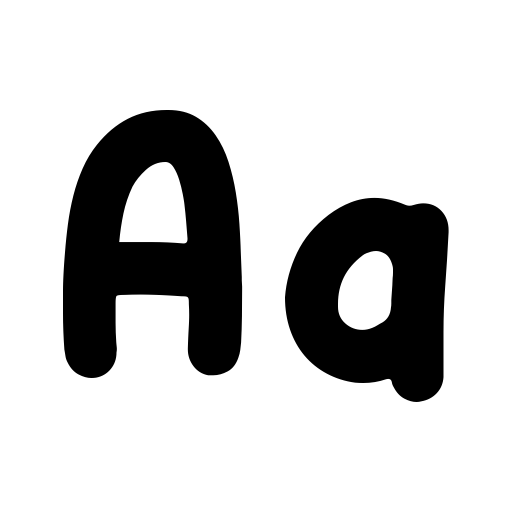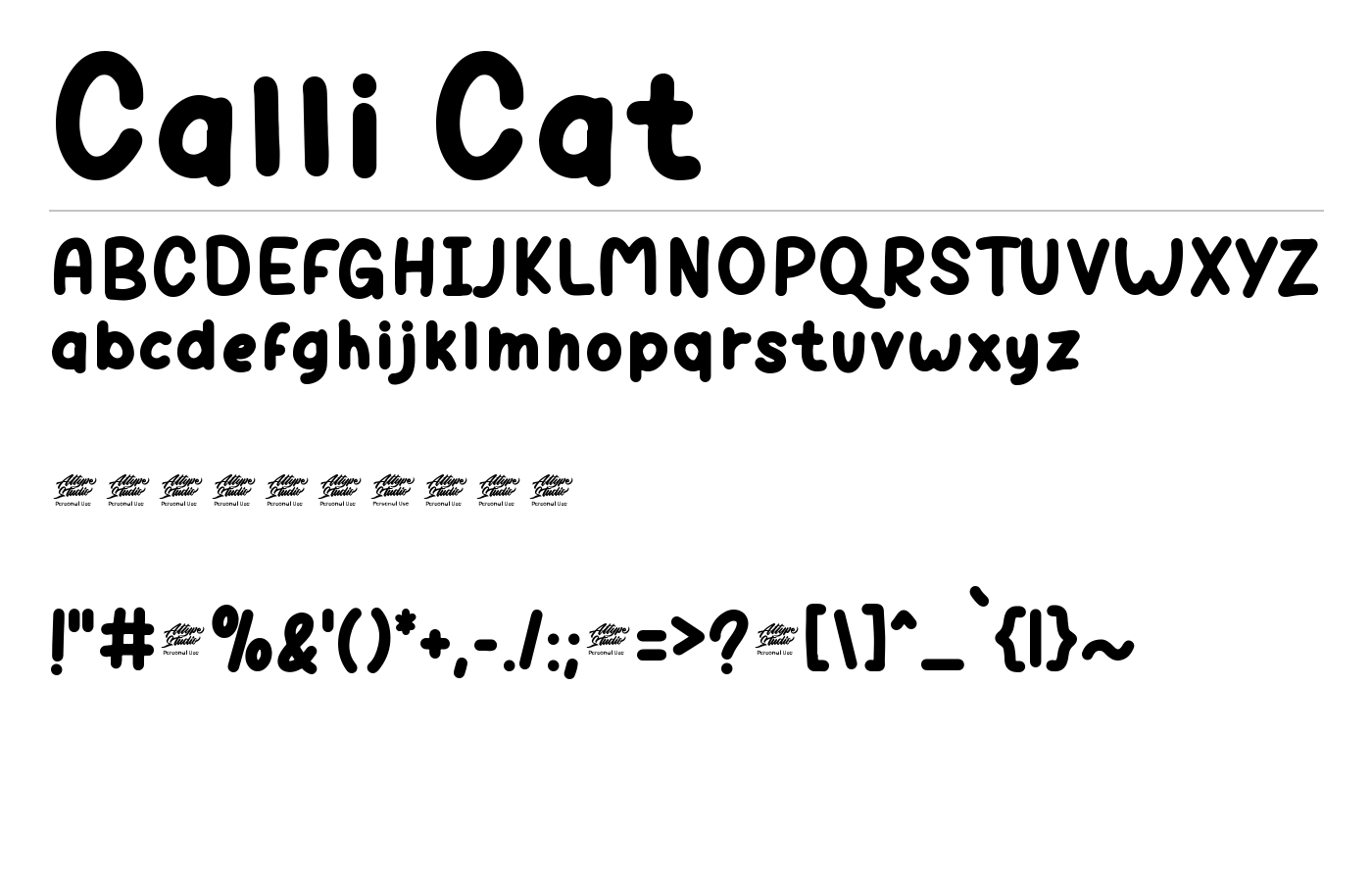
Calli Cat is a playful, rounded sans serif font with a friendly and casual feel. Its bold weight and soft, smooth curves make it perfect for fun and approachable designs, especially in children’s books, informal branding, or lighthearted posters. This font’s quirky letterforms add personality while remaining easy to read, ideal for projects that want to convey warmth and charm.
Calli Cat Font
About Calli Cat Font
| Font family | Calli Cat Font |
| Release date | 2021-06-24 |
| Designer | Fadli Ramadhan Iskandar |